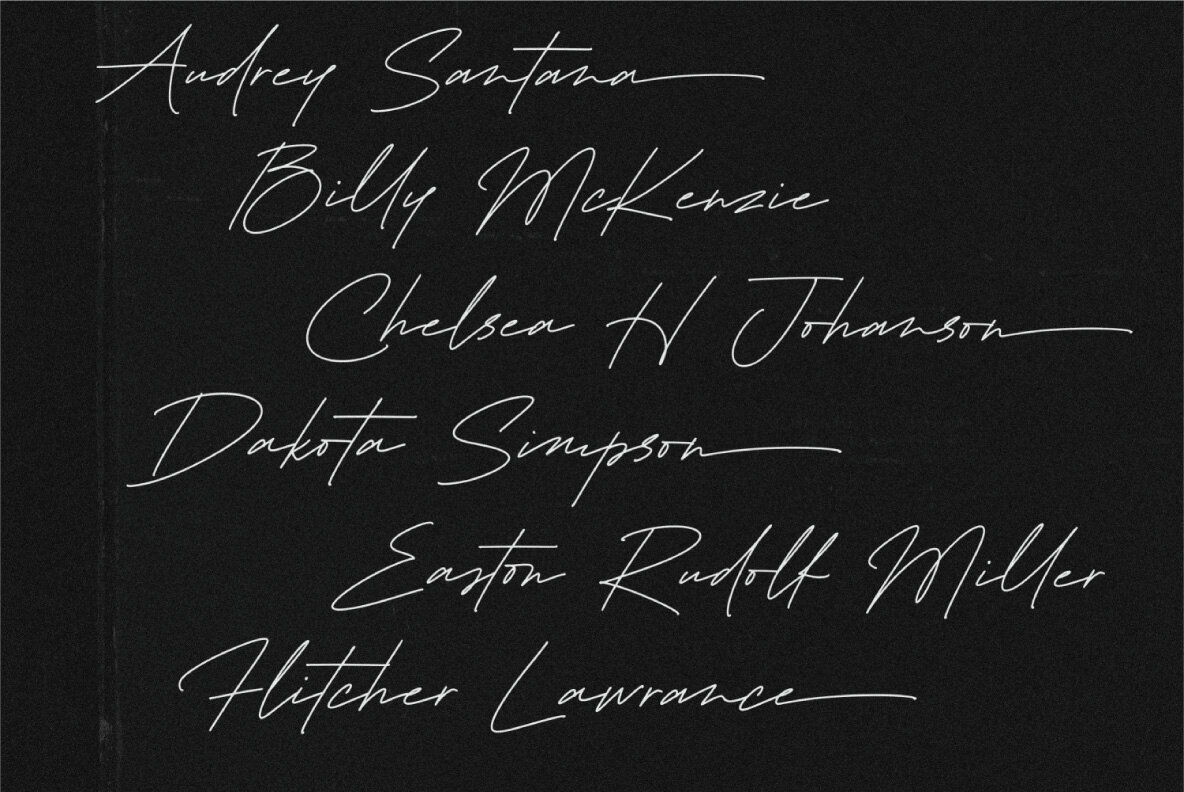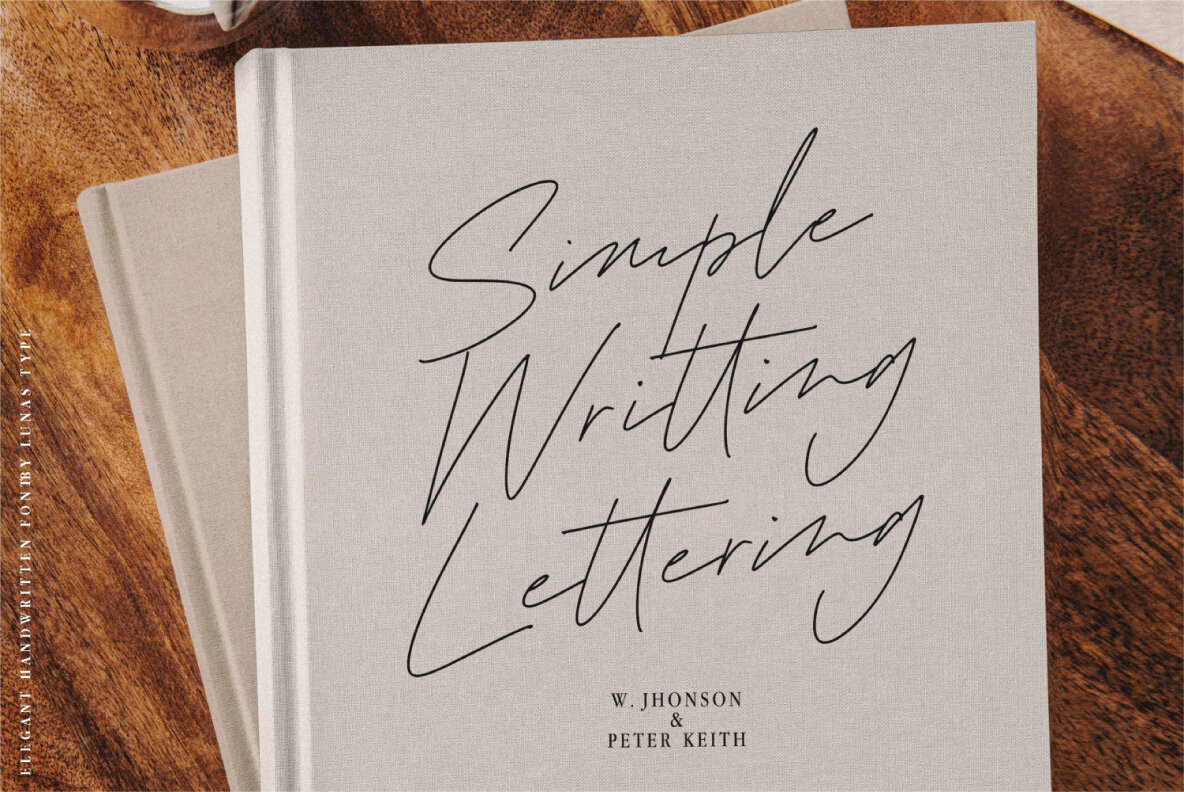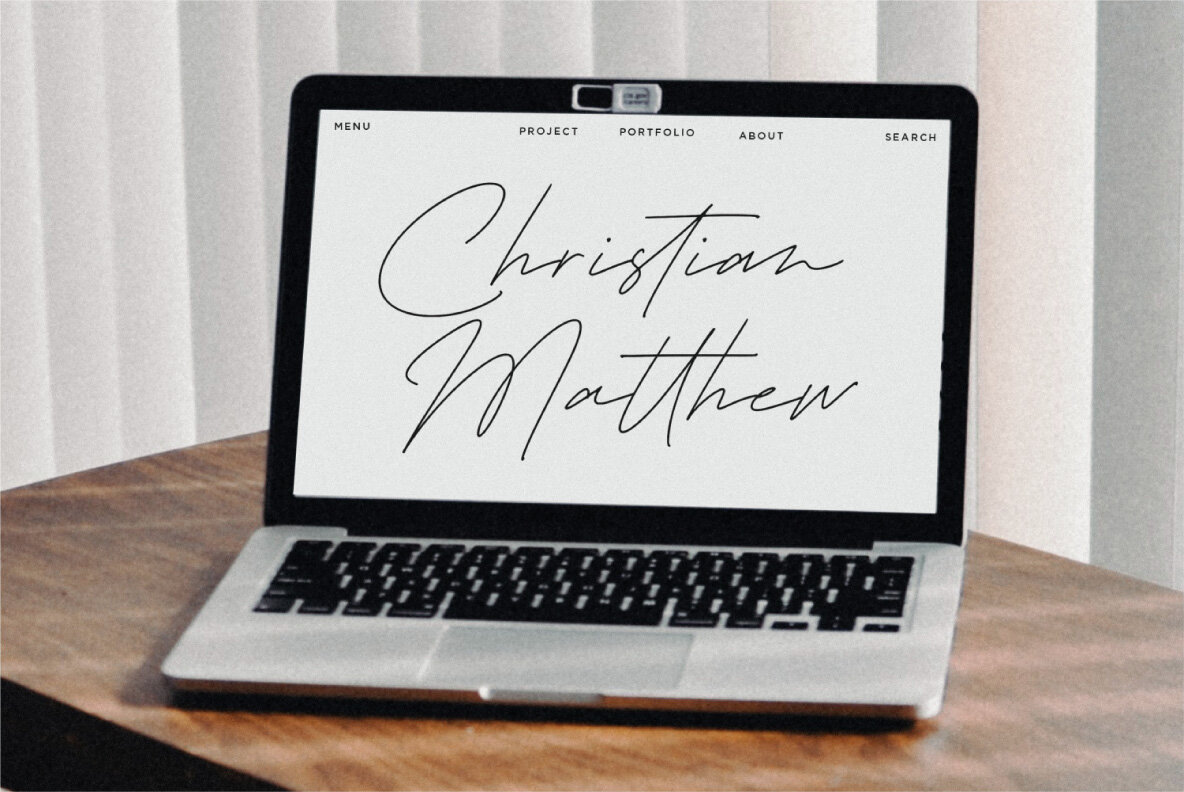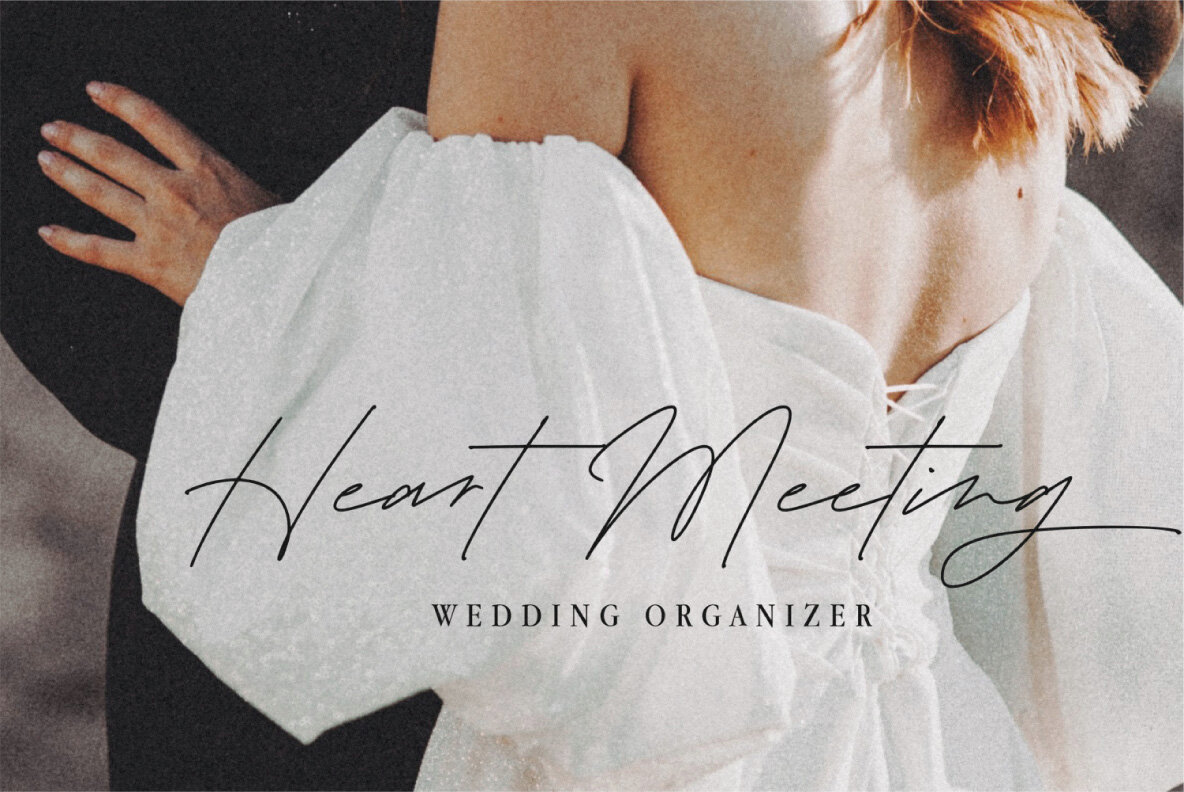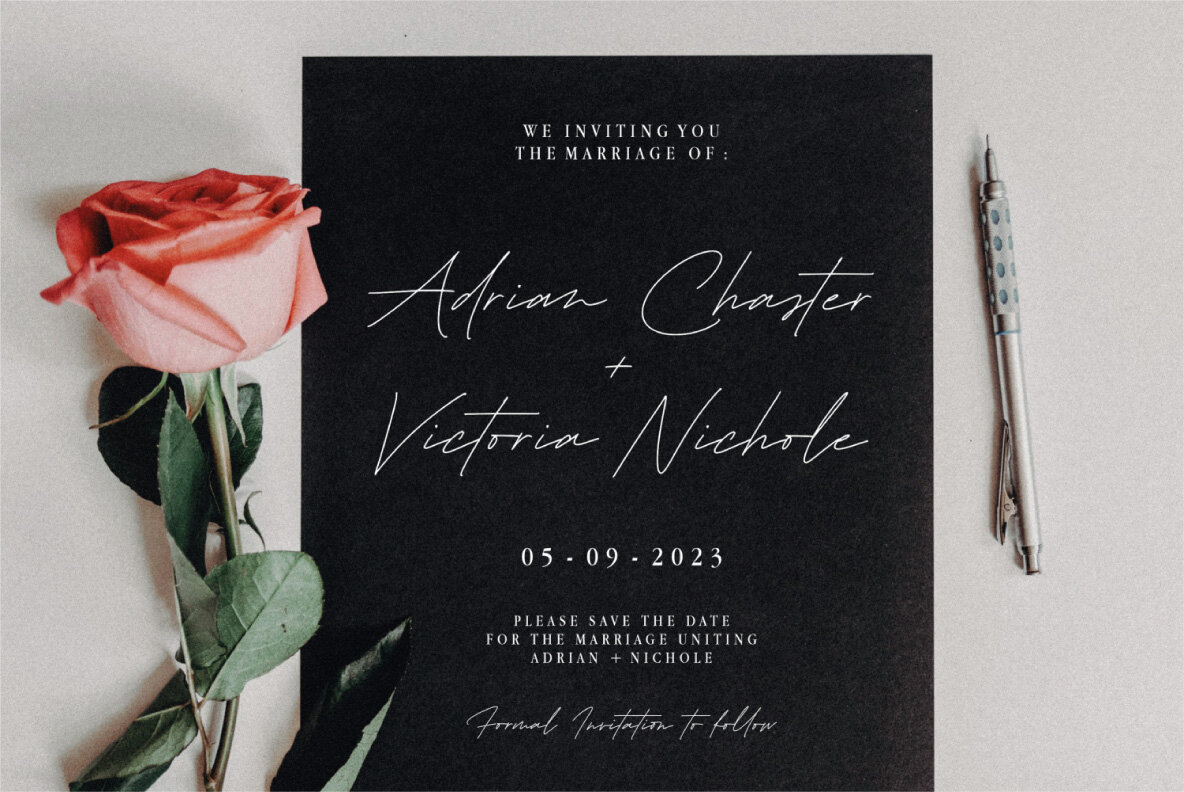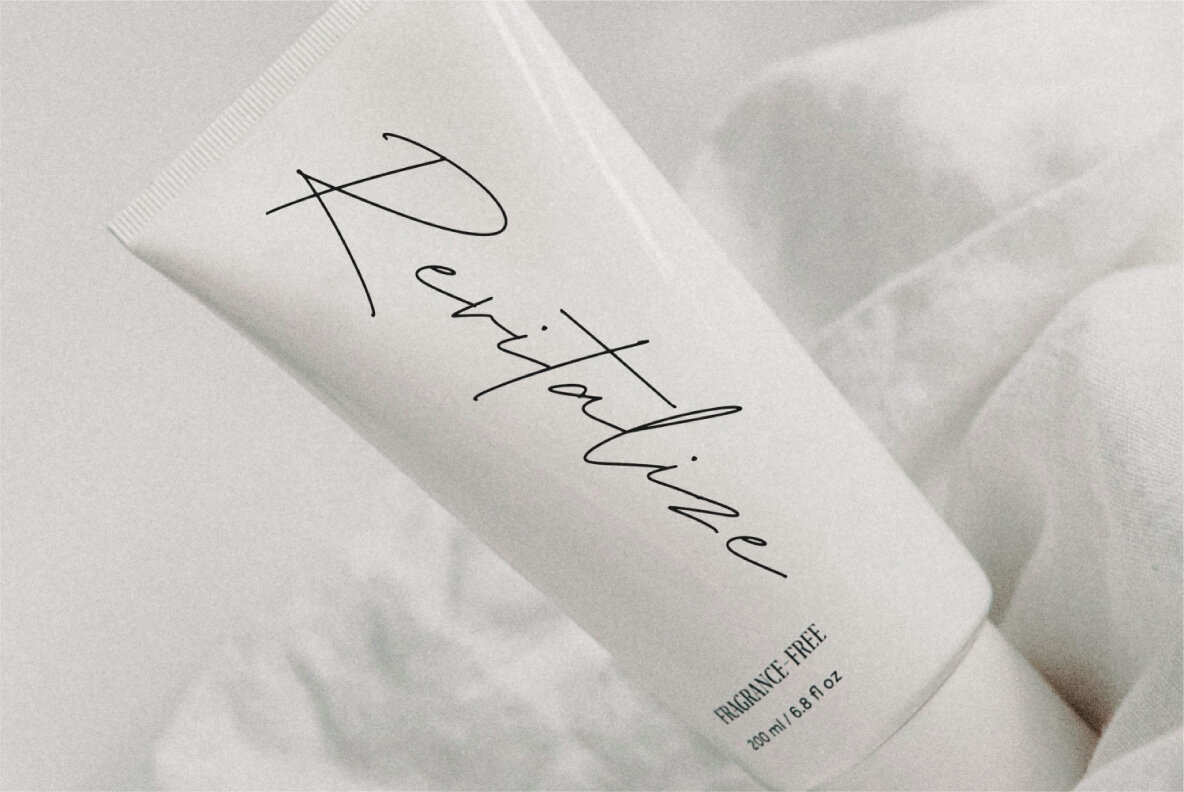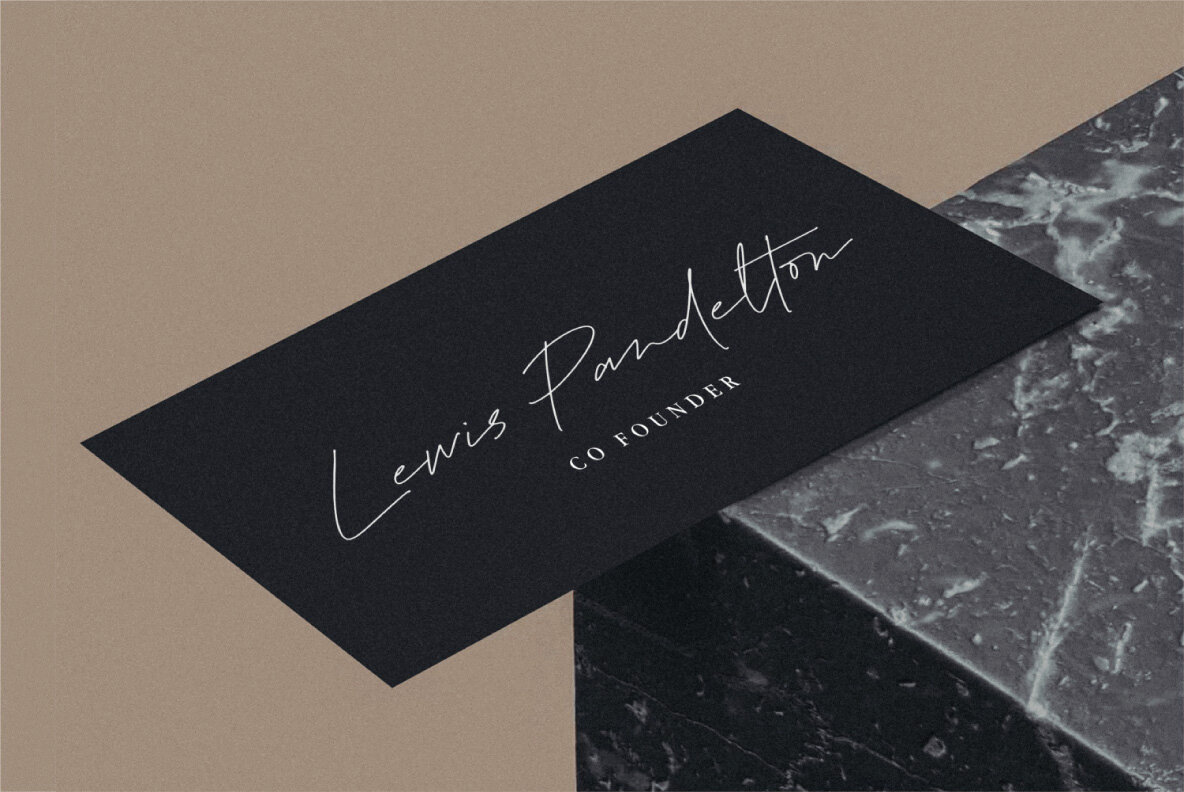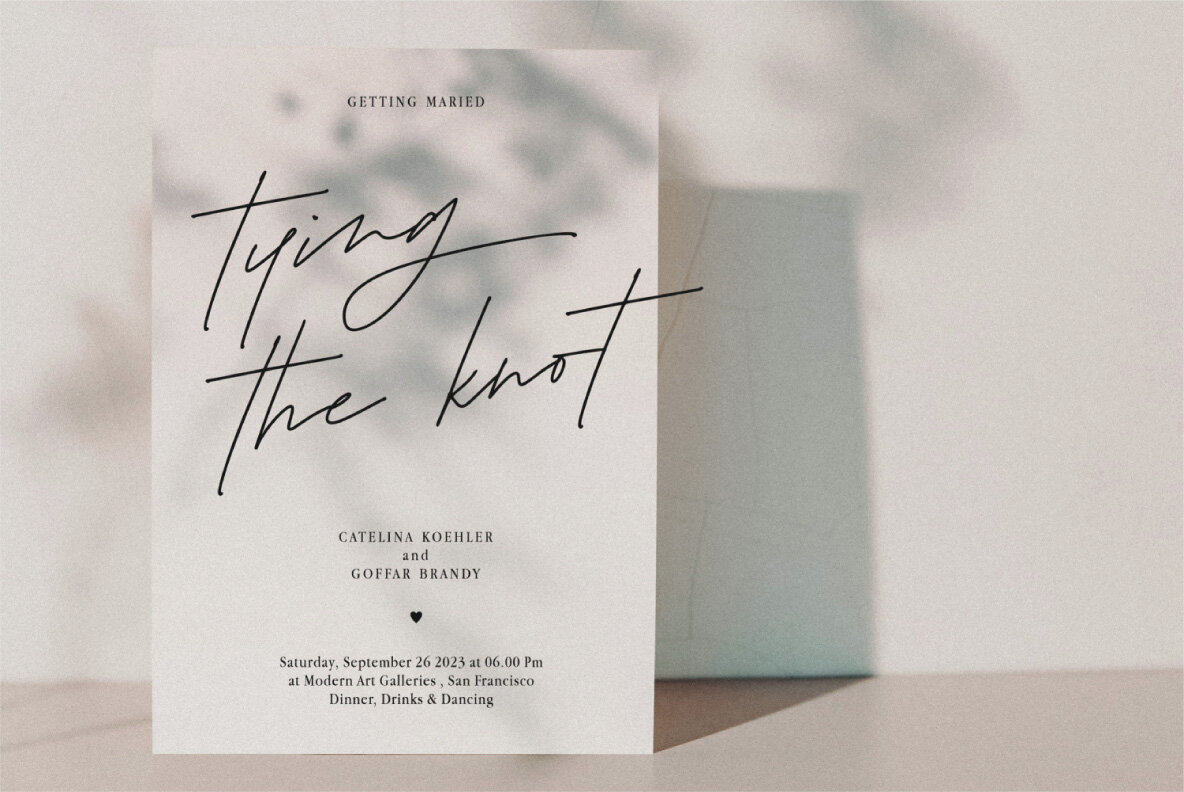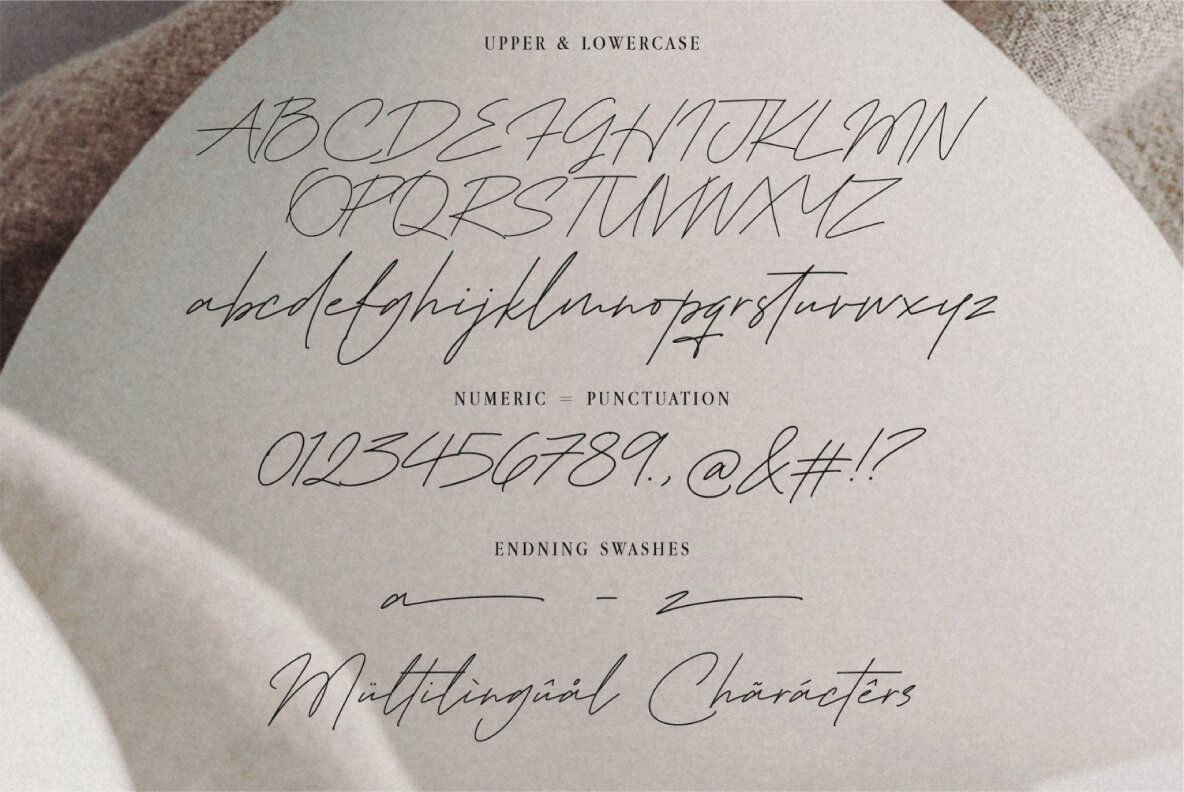
Runaways Font
Runaways Regular
Runaways is our latest signature script font designed to bring an elegant and personal touch to your creative projects. Featuring a stylish signature style and exquisite ending swashes, this font captures the essence of handwritten elegance effortlessly. Runaways is a versatile addition to any font collection, ideal for several creative applications. Craft stunning logotypes that make a lasting impression, or create exquisite wedding invitations that evoke romance and sophistication. This font is perfect for designing eye-catching packaging that stands out on the shelf and for adorning merchandise with timeless charm. This graceful and versatile script font is perfect for branding, social media graphics, product labels, apparel design, and much more. Let your creativity run wild with Runaways and explore endless possibilities for your design needs.Runaways: Elegant Signature Script Font
Perfect for Various Applications
Ideal for Diverse Design Needs